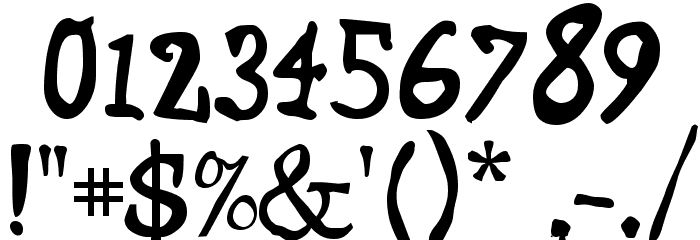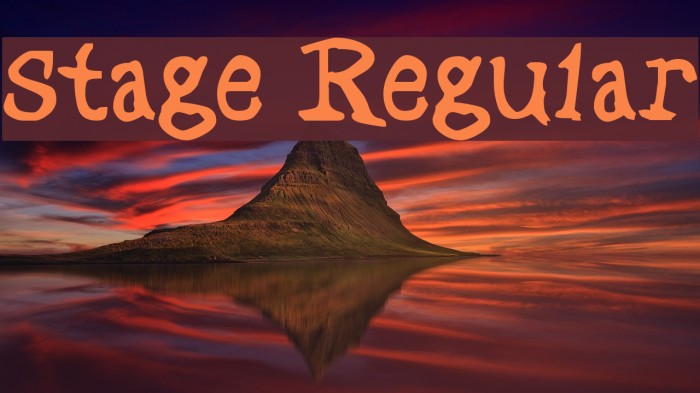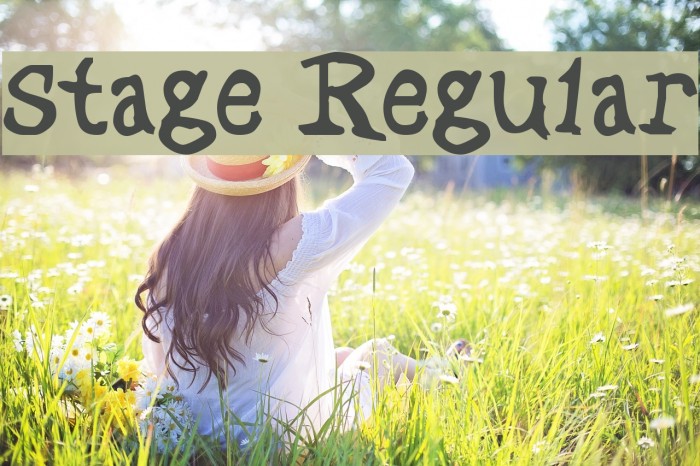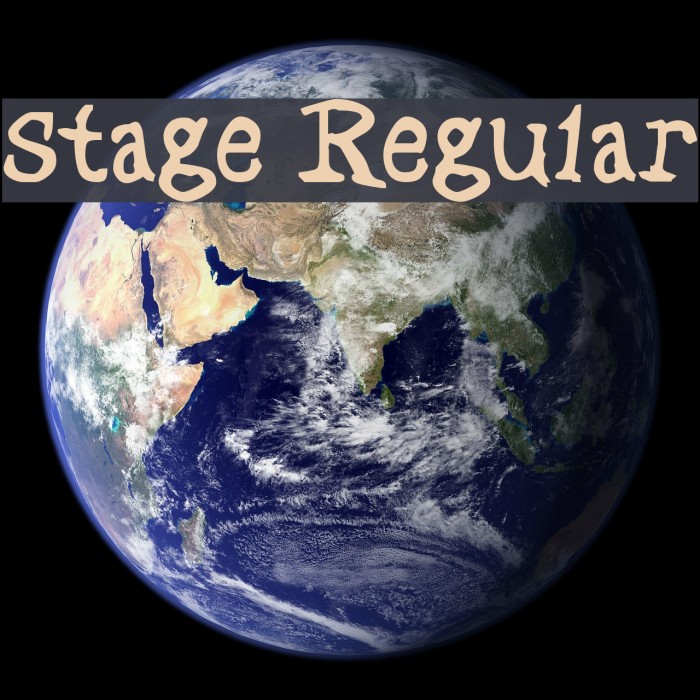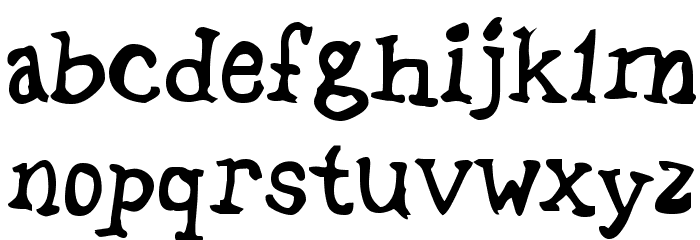
Stage Regular Font
This font features a playful and dynamic style with a hand-drawn appearance. The letters have an irregular, slightly wavy baseline, giving them a whimsical and informal look. The strokes are bold and uneven, adding to the casual and artistic feel. The uppercase and lowercase letters maintain a consistent style, with exaggerated curves and varying stroke widths. The numbers and special characters follow the same lively design, making the font suitable for creative and fun projects. The overall impression is one of spontaneity and creativity, perfect for designs that aim to capture attention with a unique and engaging aesthetic.
A playful, hand-drawn font with bold, irregular strokes and a whimsical style.
• Proposed Projects: Ideal for children's books, creative posters, playful branding, and artistic invitations.